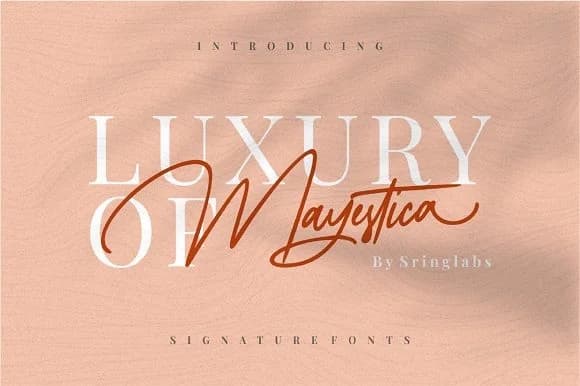
Imagine laying out a wedding invitation suite for a client who expects nothing but pure excellence in every detail. Mayestica Font, designed by StringLabs, brings refined letterforms that flow like genuine handwriting - exactly what you need to whisper luxury rather than shout it across premium paper.
This particular script performs best in specialized contexts where attention to detail shapes the entire perception of quality and craftsmanship. Wedding invitation suites, luxury cosmetics packaging, boutique jewelry branding, and high-end stationery collections all gain real impact and sophistication from these carefully crafted curves. StringLabs didn't design this typeface to do everything equally well at every size. It's purpose-built specifically for projects where elegance isn't just background noise but genuinely the core message. The refined edges give each letter real substance and weight, ensuring nothing gets lost as mere decoration.
Multiple weights and extended language support give you genuine flexibility across different application types and international projects without limitation. Mayestica reads particularly well at larger display sizes on premium materials like cardstock or specialty paper, where the individual letterforms finally get proper breathing room to show their character. Pick it up on Creative Fabrica when your project demands this particular level of refinement.
Mayestica Font is a script font that shines as a display or heading face. Pair it with a clean sans-serif or serif font for body text β the contrast creates a clear hierarchy while the two styles stay balanced and easy to read.
Mayestica Font